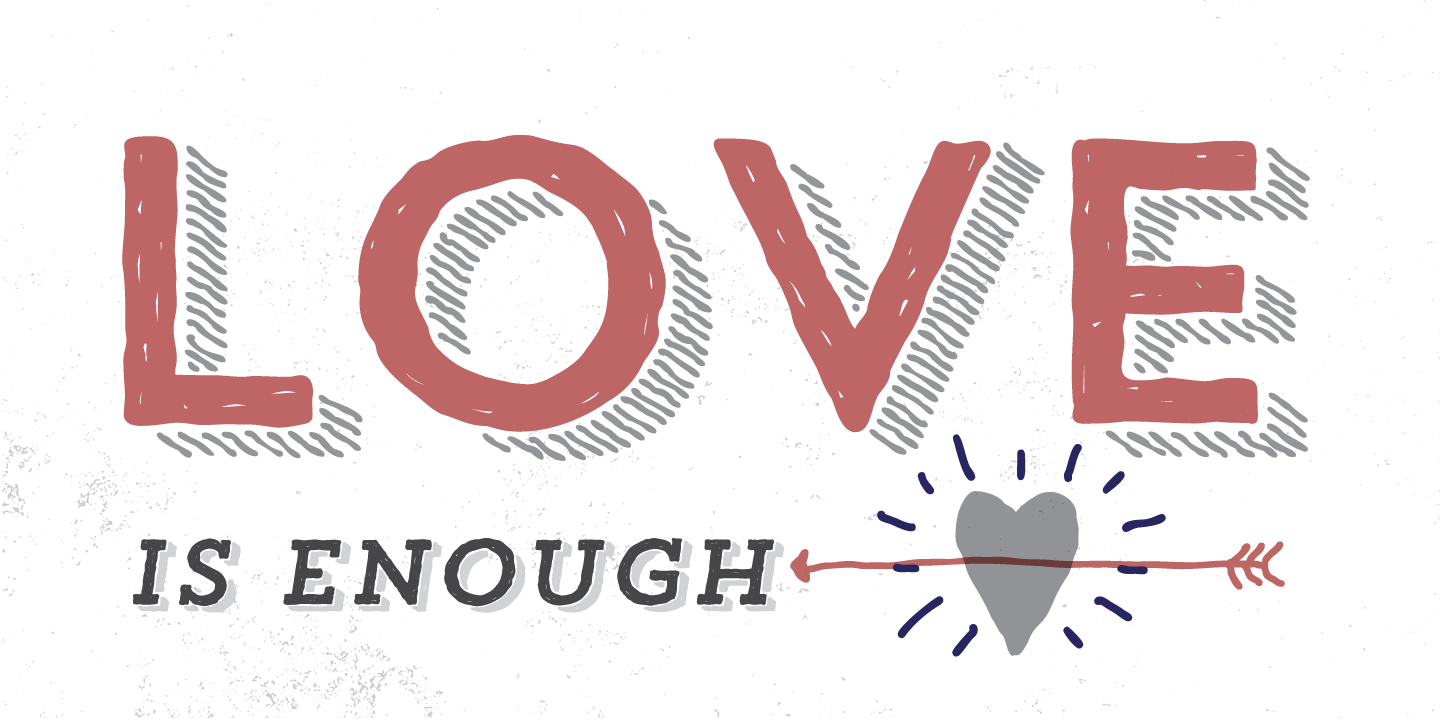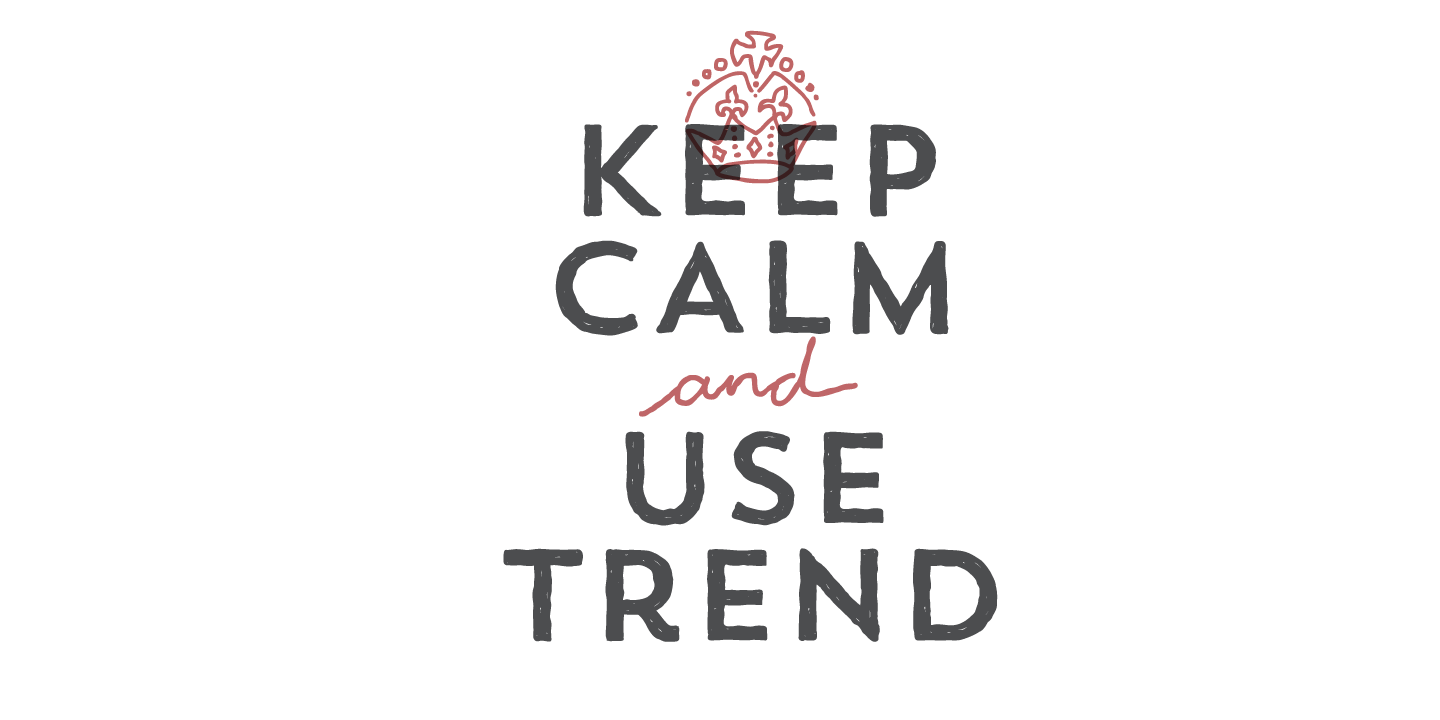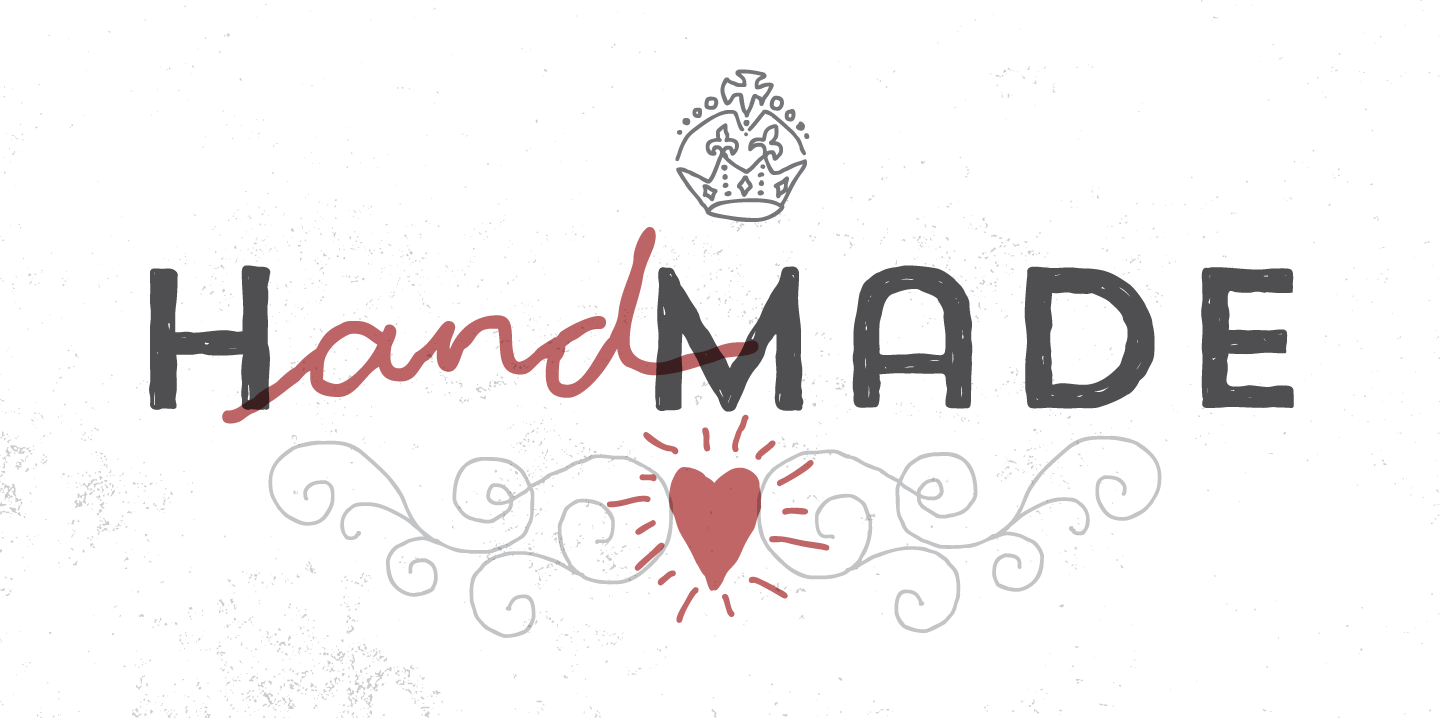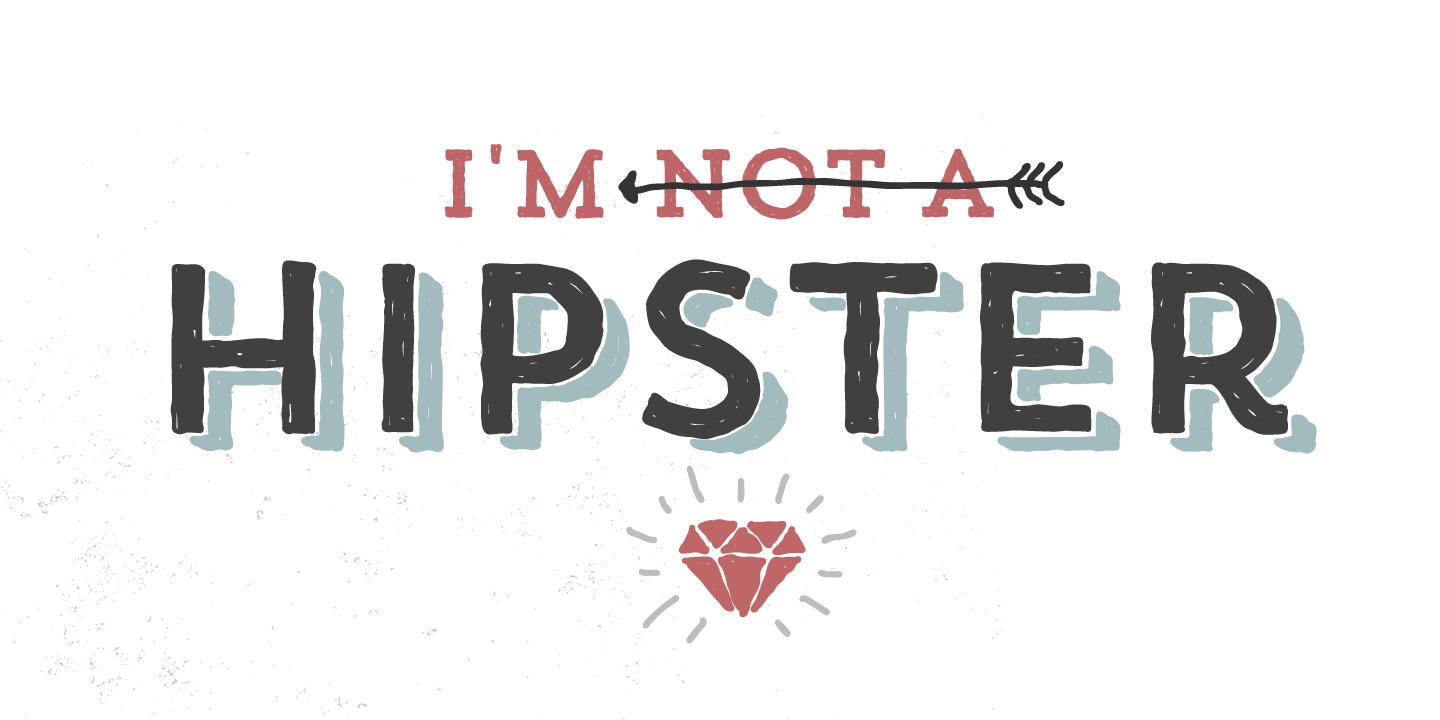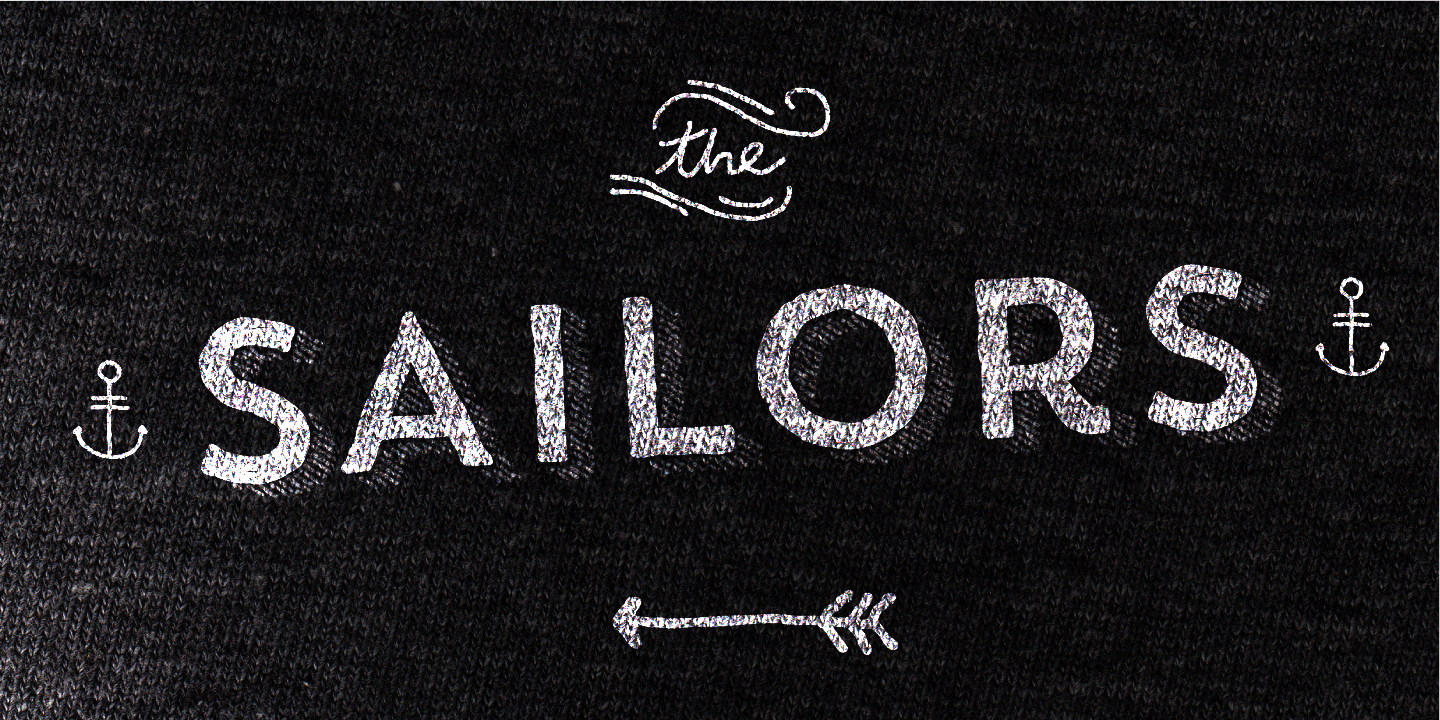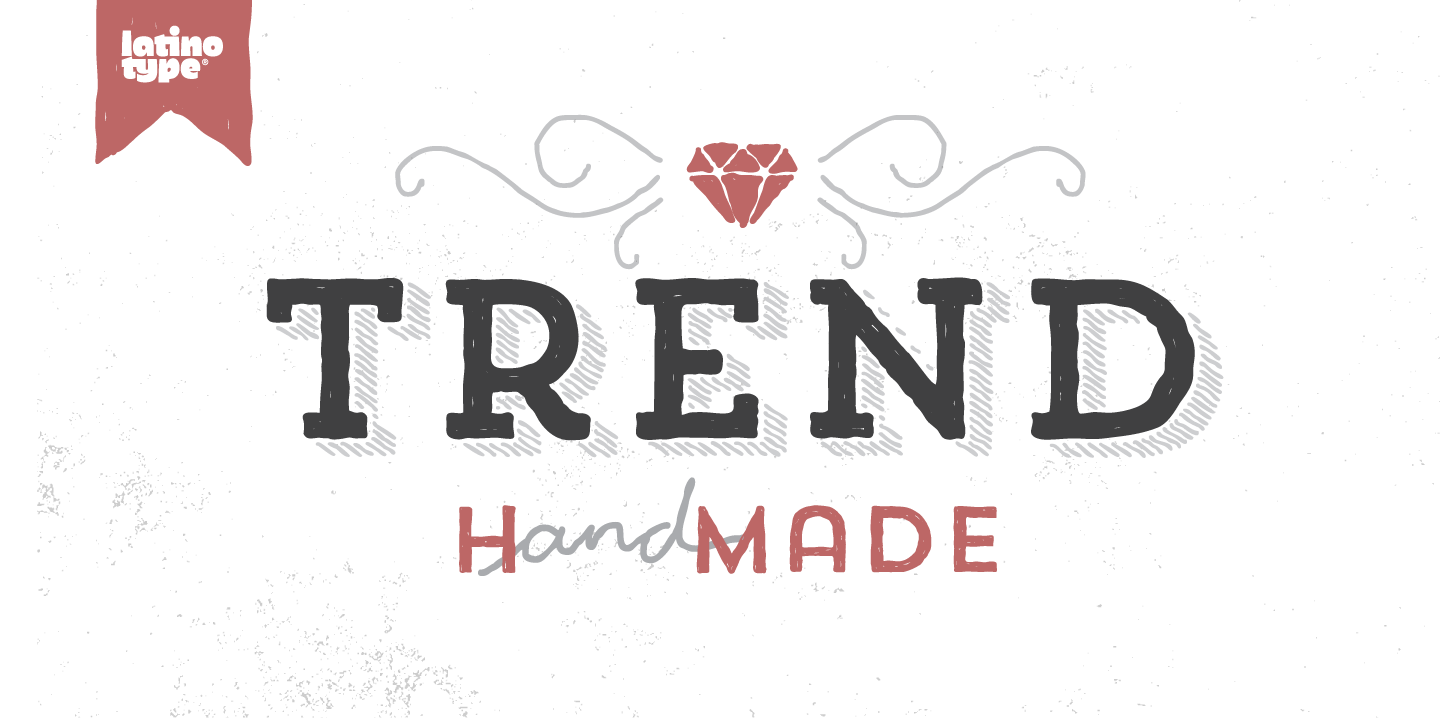
Trend Hand Made Family (21 fonts)
Trend™ Hand Made, like Trend™, is a font of layers, incorporating a sans and a slab font. Designed by Daniel Hernandez and Paula Nazal Selaive, The Trend family of fonts are the result of observation and cultural research. Trend tries to capture the aesthetics of modern fashion or even fashion itself, integrating elements of popular and current trends. Note, the Trend Hand Made Ornaments font is not shown above, but it is included.